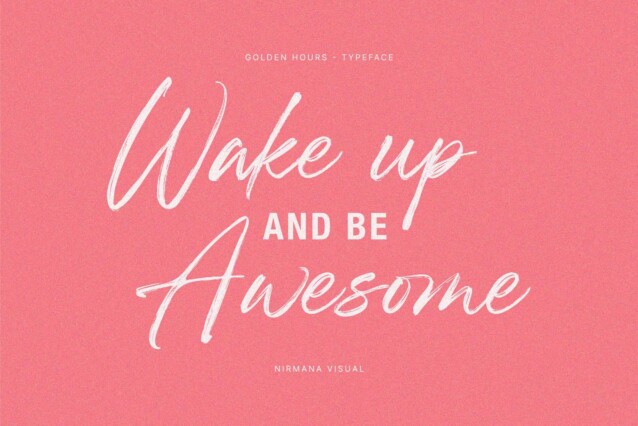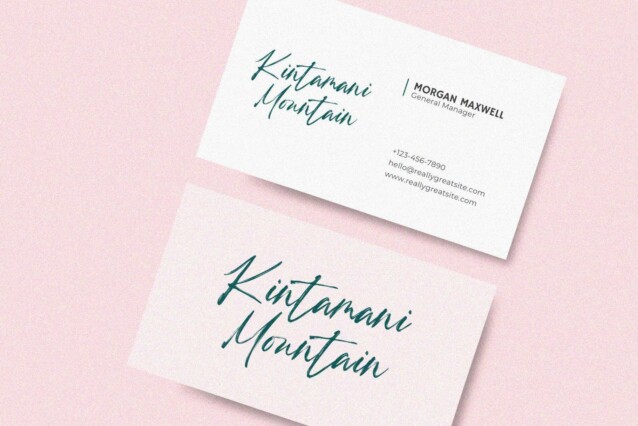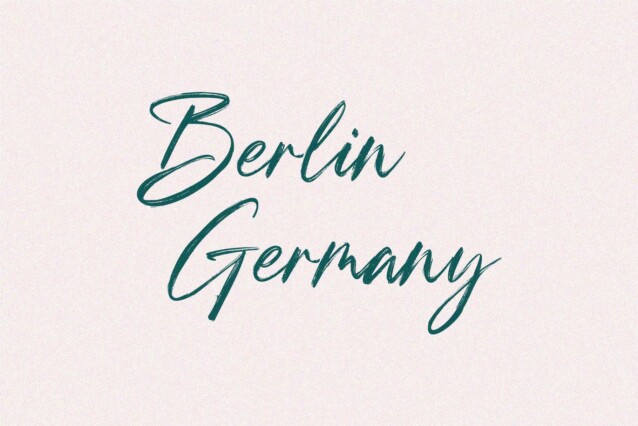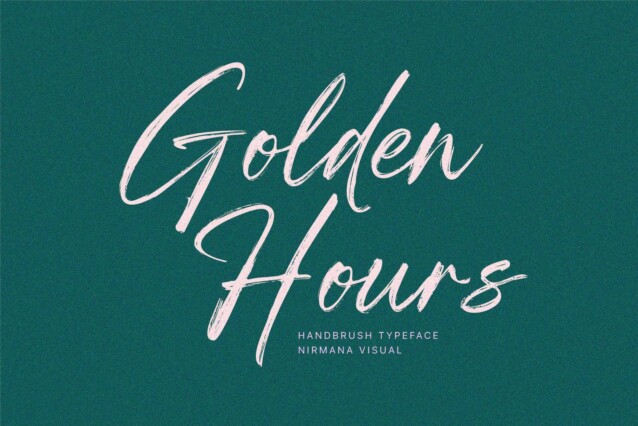
Golden Hours Font
Golden Hours Font is a textured handwritten script font crafted & designed by Nirmana Visual. This font is detailed and has a beautiful shape. This font will be perfect for posters, invitations, branding, social media content, headlines, body text in magazines, logos and many more.